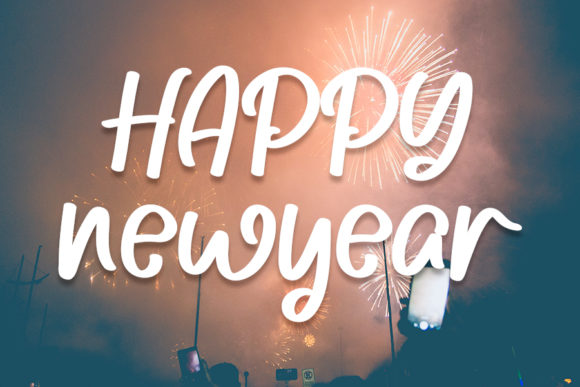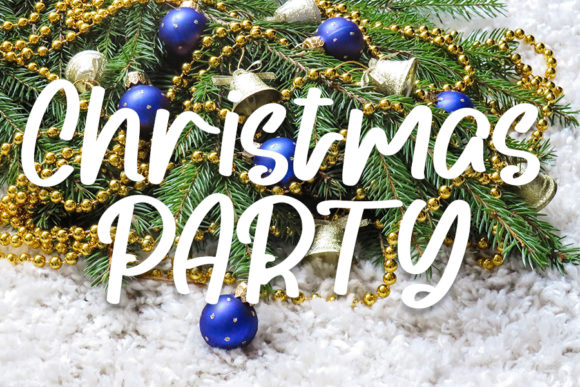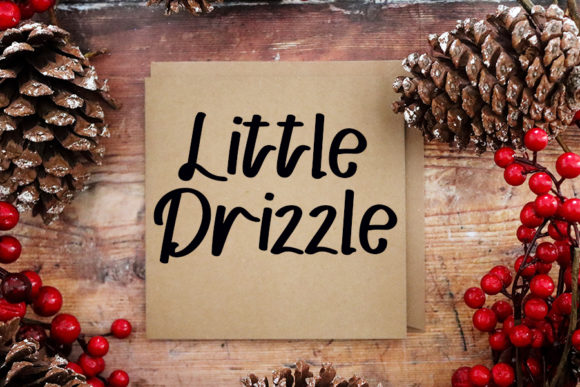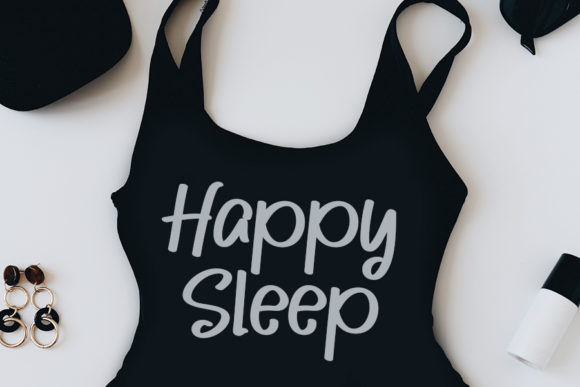
Introduction to Botesia Font
Do you remember the moment when you stumbled upon the perfect font for your creative project? Maybe it was a quirky handwritten script that added a touch of whimsy to your design, or a bold sans-serif that made your message stand out. For designers, finding the right font can be a game-changer, and today we’re excited to introduce you to a new design resource that’s sure to become a favorite: the Botesia Font.
With its simple, cute, and trendy handwritten style, the Botesia Font is perfect for a wide range of creative applications, from crafting and digital designing to presentations and greeting cards making. Whether you’re working on a free project or need a high-quality font for a paid gig, the Botesia Font is a valuable addition to any design arsenal.
Key Features of Botesia Font
- Unique and Creative Design: Botesia Font offers a distinctive and artistic design perfect for various creative projects, including logos, branding, and advertisements.
- High-Quality Typography: This font features crisp, clear, and highly legible typography, making it ideal for both digital and print media.
- High Resolution: The font is designed with high resolution in mind, making it suitable for large-scale prints, billboards, and other high-resolution applications.
- Perfect for Creative Projects: Botesia Font is an excellent choice for designers working on creative projects, including magazine layouts, posters, and infographics.
Honest Review: Botesia Font
I recently had the chance to try out the Botesia Font, a free download that’s quickly becoming a popular design resource. I was excited to see if it would live up to the hype.
What works well is the Botesia Font’s clean and minimalist aesthetic. It’s perfect for a creative project where you need a high-quality font that won’t distract from the content. The font also features a transparent background, making it easy to layer over different backgrounds and images.
- High-quality design with a clean and minimalist aesthetic
⚠️ One limitation of the Botesia Font is that it’s a relatively simple font, which may not be suitable for more complex or detailed design projects. Additionally, the font may not be available in as many weights and styles as some other popular fonts.
Overall, I’m impressed with the Botesia Font’s design and functionality. While it may have some limitations, it’s a great resource for designers looking for a high-quality font with a clean and minimalist aesthetic.
Common Use Cases for Botesia Font
The Botesia Font is suitable for a wide range of creative projects, including logos, business cards, social media graphics, and marketing materials.